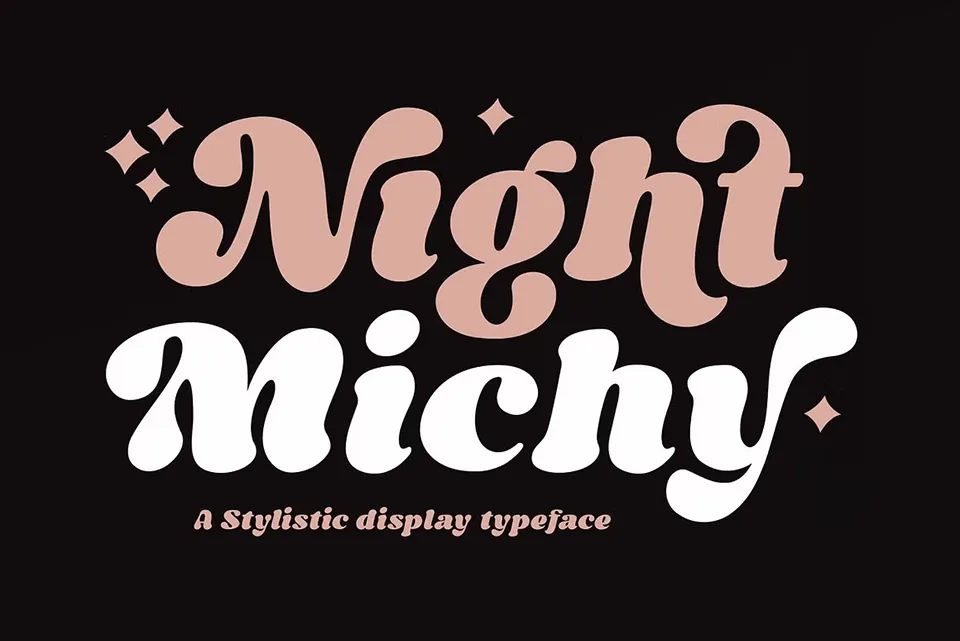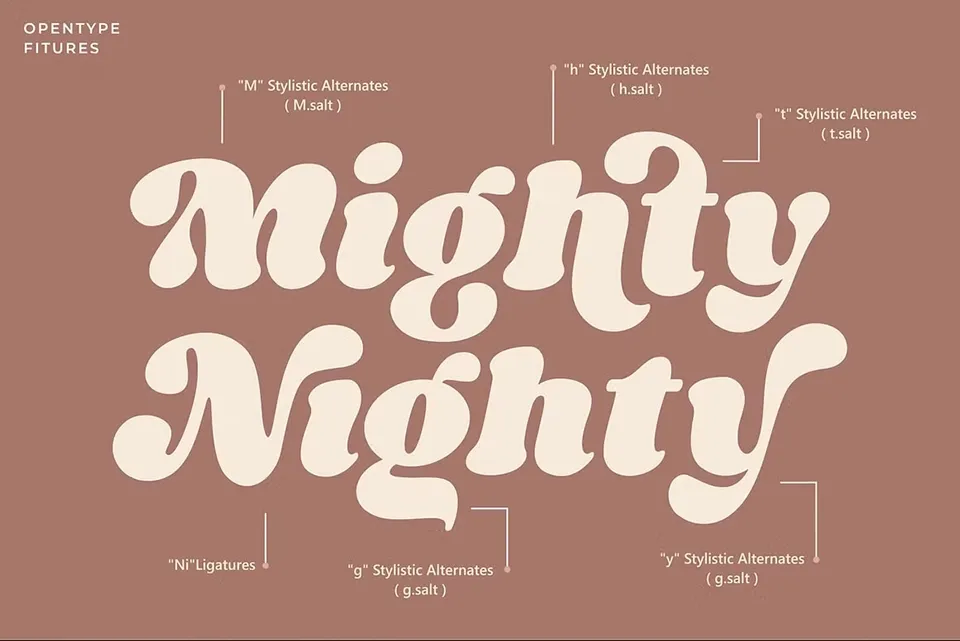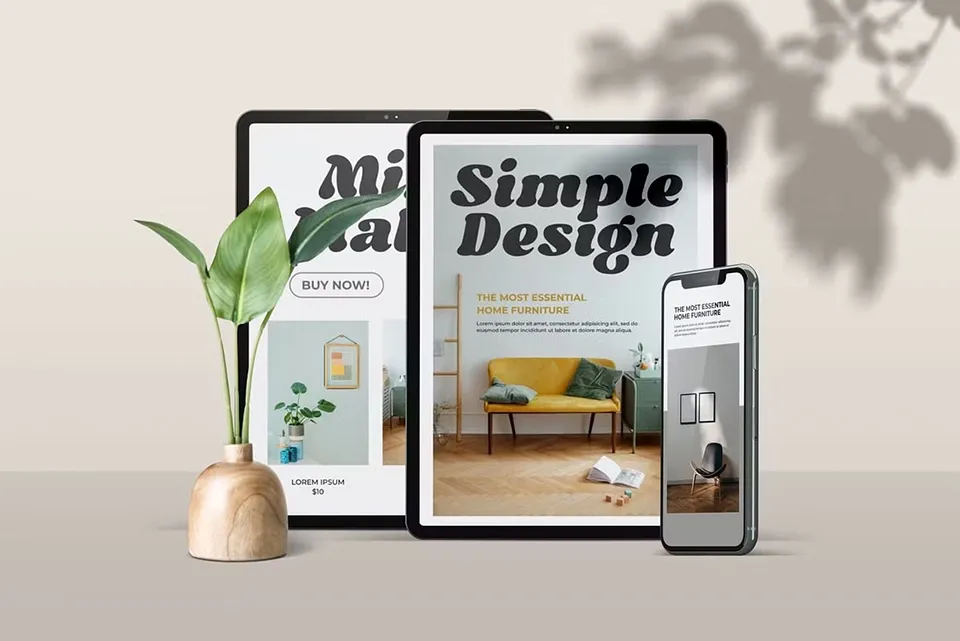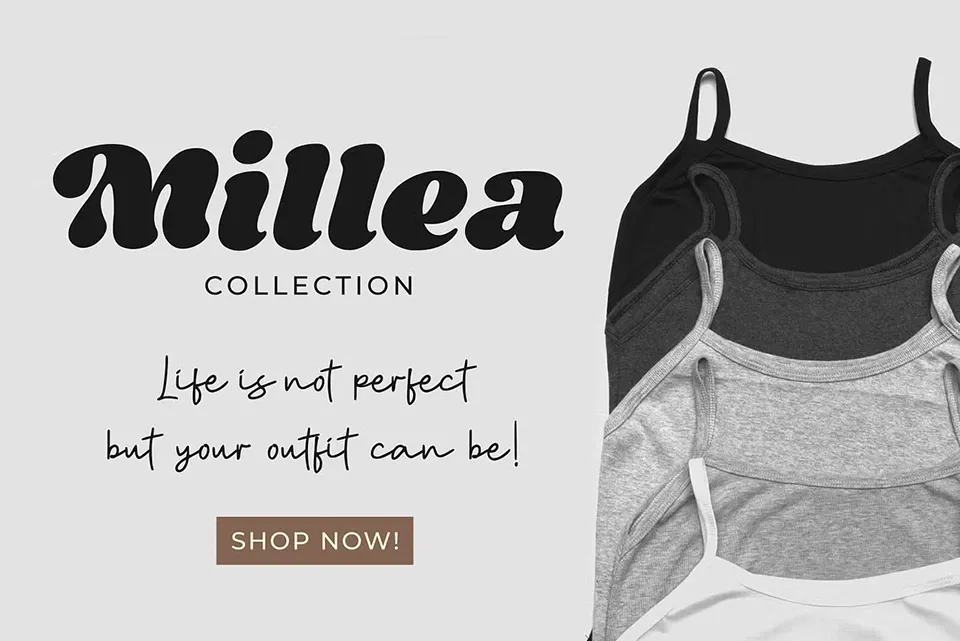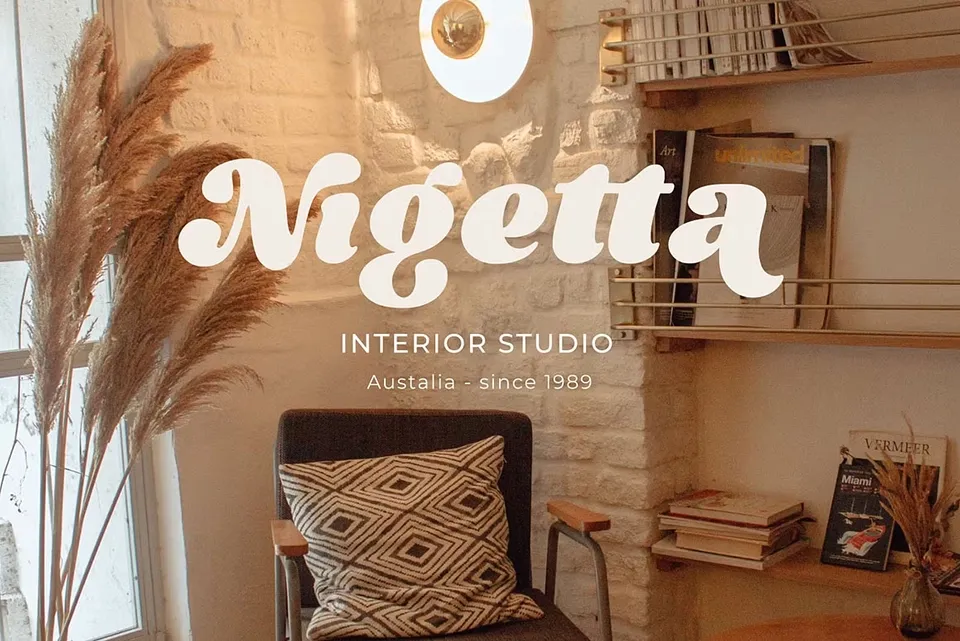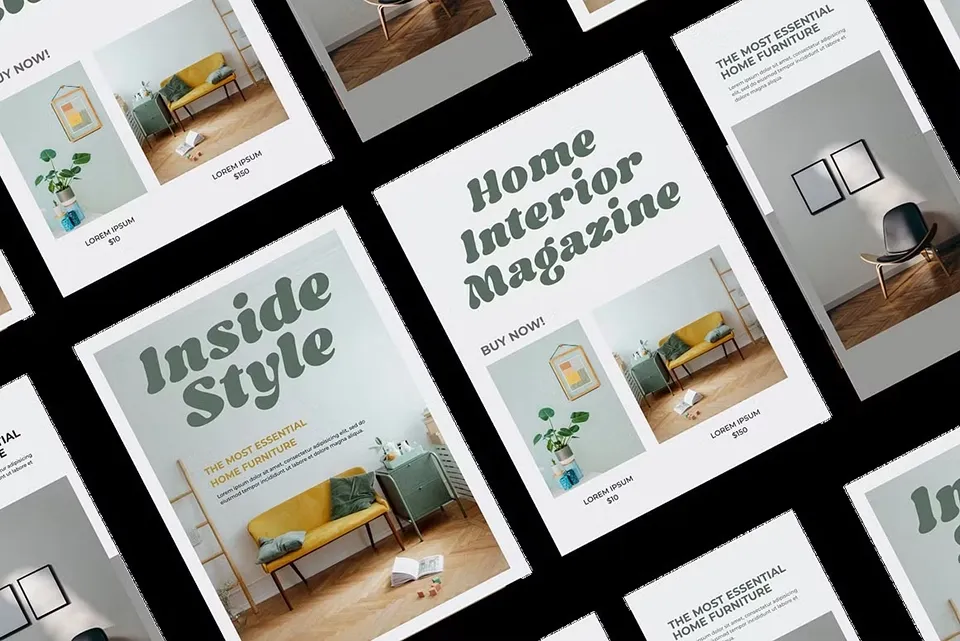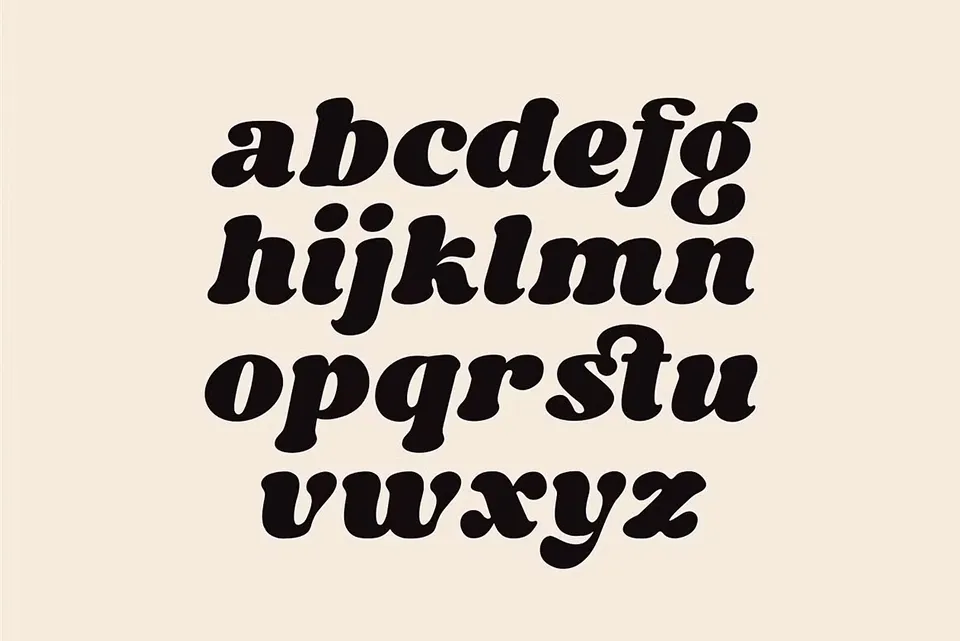
Night Michy Font
Night Michy Font is a stylistic display typeface with a distinctly groovy and playful vibe. This font features bold, rounded letterforms that evoke a retro feel, perfect for making a fun and eye-catching statement. Its soft curves and thick strokes give it a friendly and approachable look. Ideal for headlines, logos, branding, posters, social media graphics, and any design project that calls for a touch of vintage charm and personality, Night Michy adds a unique flair and energetic style to your creative work.